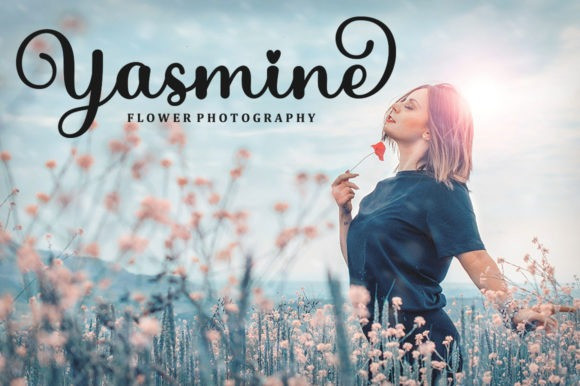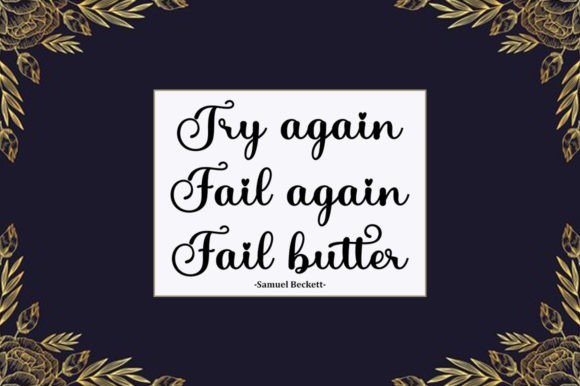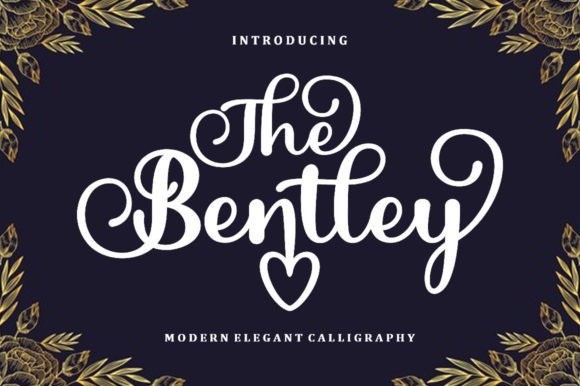
The Bentley Font
The Bentley Calligraphy Font is an elegant and luxurious calligraphy typeface with characters that dance along the baseline. It has a casual, yet elegant touch. This font is PUA encoded which means you can access all of the glyphs and swashes with ease!